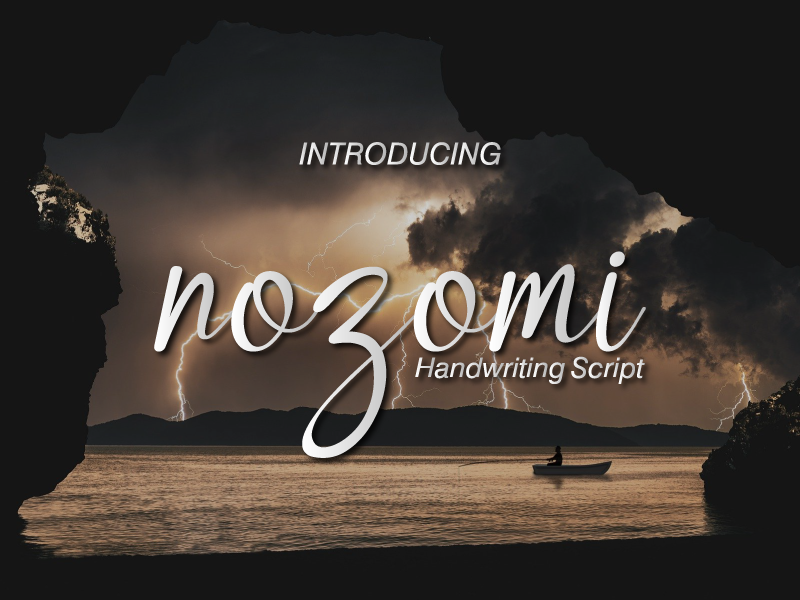
Preview and download Nozomi Font. Created by Gais Zaelani in Script Handwritten styles with Free for personal use license.
Nozomi is a cute and casual handwritten font with an incredibly friendly feel. Whether you�re looking for fonts for Instagram or calligraphy scripts for DIY projects, this font will turn any creative idea into a true piece of art! NOTE: This demo font is for PERSONAL USE ONLY! But any donation are very appreciated. Paypal account donation: www.paypal.me/jprintstudio Link to purchase full version and commercial license : https://www.creativefabrica.com/product/nozomi/ref/237608/ And follow my Dribble for Update : dribbble.com/GaisZ |